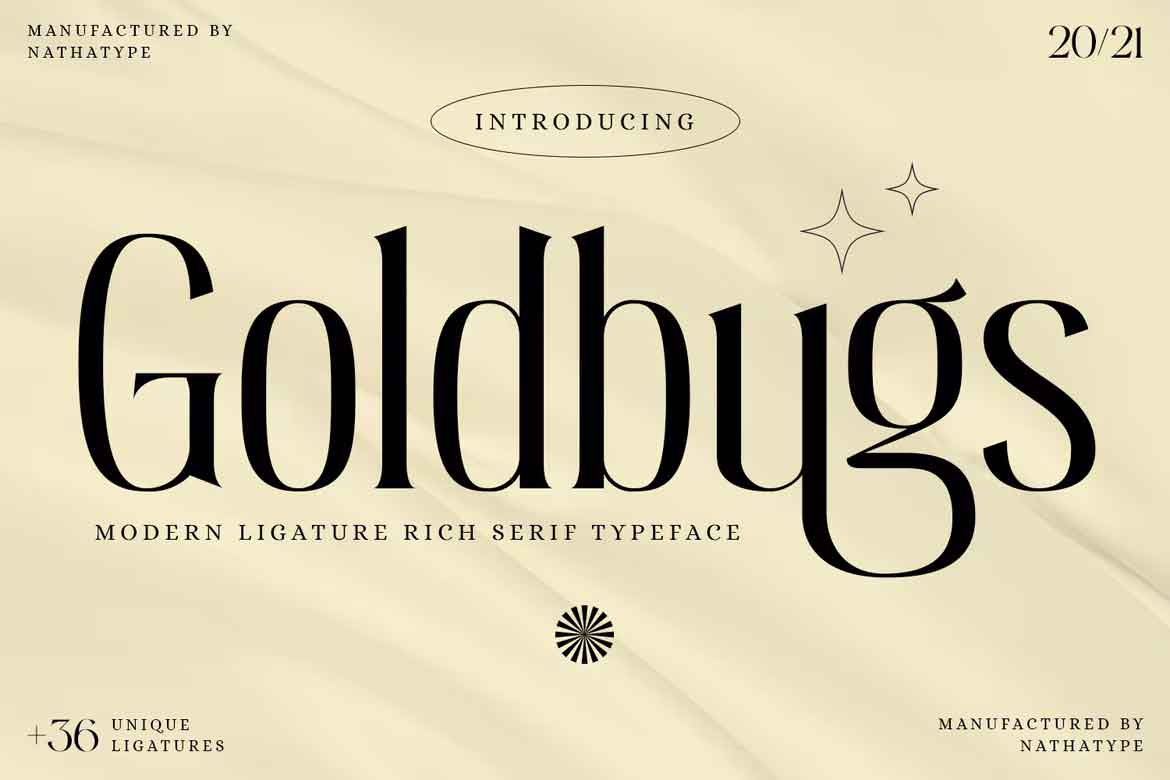
Goldbugs Font
Goldbugs is an elegant serif font designed with sophistication and modern style in mind. Every letter features its own distinct look that brings your designs to life! Perfect for quotes, designs for shirt branding, websites, children’s designs, svg templates blogs logos invitations and much more!
Goldbugs Serif Font